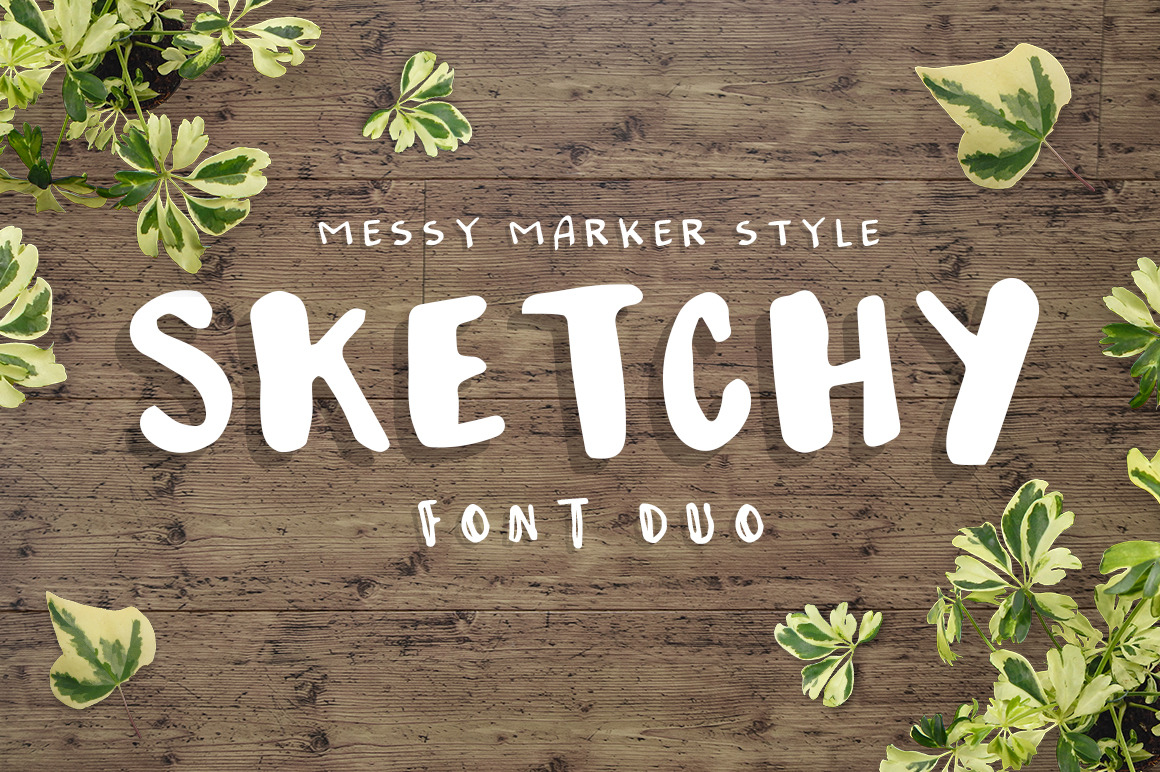
Sketchy - handmade font trio!
SKETCHY - HANDMADE FONT TRIO! An amazing font pack that contains three fonts with that handmade touch that the digital designs need! There's no limits with these. Let your creativity take control and create the most beautiful designs!
- Create cards, invitations, presentations, flyers, merchandise, etc..
- Make it part of a brand.
- Perfect for pairing with other fonts.
- Use it for children designs.